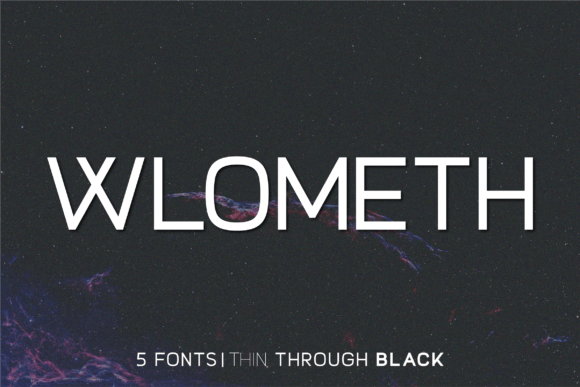
Unlock the Art of Exquisite Typography with Wlometh Font Family
In a world saturated with visual information, your designs and creations deserve a font that not only communicates your message but elevates it to a visual masterpiece. Introducing Wlometh, a font family that embodies elegance, precision, and the beauty of authentic craftsmanship.
Wlometh's meticulously designed glyphs, available in five distinct weights, offer a spectrum of creative possibilities. Craft delicate, ethereal designs with the thin weight, or make a bold statement with the impactful black weight. From soft whispers to commanding declarations, Wlometh empowers you to convey your message with grace and impact.
Step into a Realm of Endless Creativity
With Wlometh, versatility reigns supreme. Whether you're a seasoned designer or just starting your creative journey, this font family will effortlessly adapt to your vision. From branding and logos to web design and social media graphics, Wlometh blends seamlessly with your creative projects, enhancing them with a touch of sophistication and style.
Embrace a Font Rooted in Heritage and Innovation
Wlometh draws inspiration from the timeless elegance of classic calligraphy, blending it with a distinctly modern aesthetic. Each letterform is a testament to the font's meticulous craftsmanship, where tradition meets innovation. Experience the joy of creating designs that resonate with heritage and captivate with a fresh, contemporary allure.
Embark on a Journey of Visual Excellence
With Wlometh, your designs will transcend the mundane and enter the realm of the remarkable. Its seamless readability and pleasing aesthetics make it a perfect choice for both print and digital media. Imagine your words dancing across pages, screens, and hearts, leaving a lasting impression on your audience.
Elevate Your Design Legacy with Wlometh
Wlometh is not merely a font; it's a tool that amplifies your creative potential, enabling you to craft designs that stand out, inspire, and leave an indelible mark on the world. Don't settle for ordinary fonts; choose Wlometh and unlock the gate to visual brilliance. Explore its versatile weights, discover its timeless elegance, and elevate your design legacy to new heights.